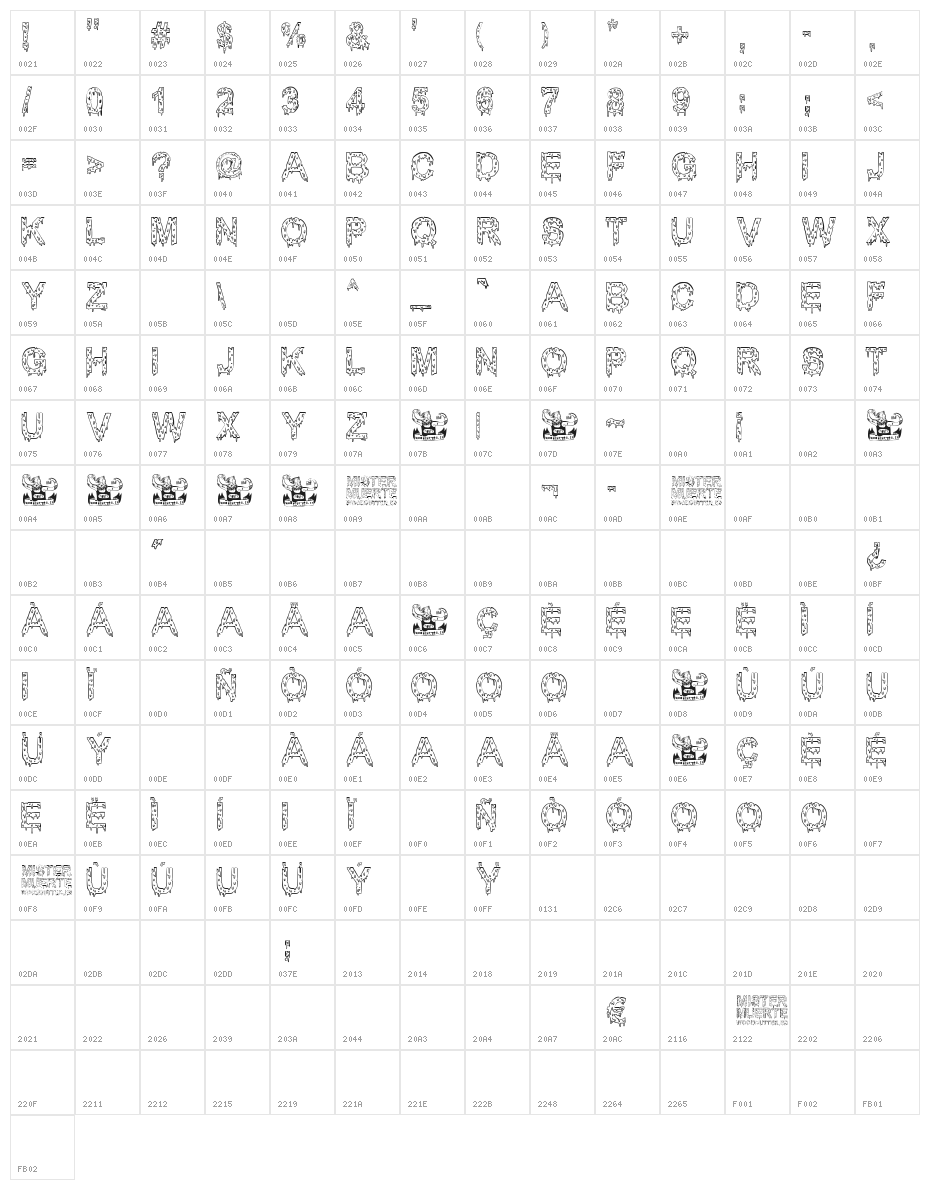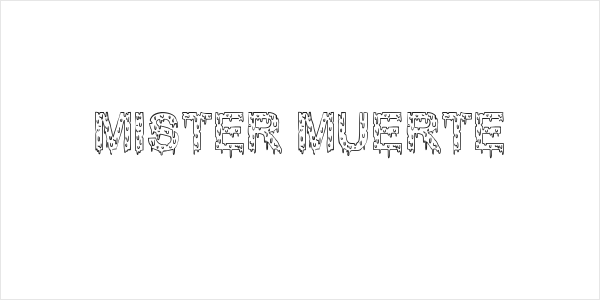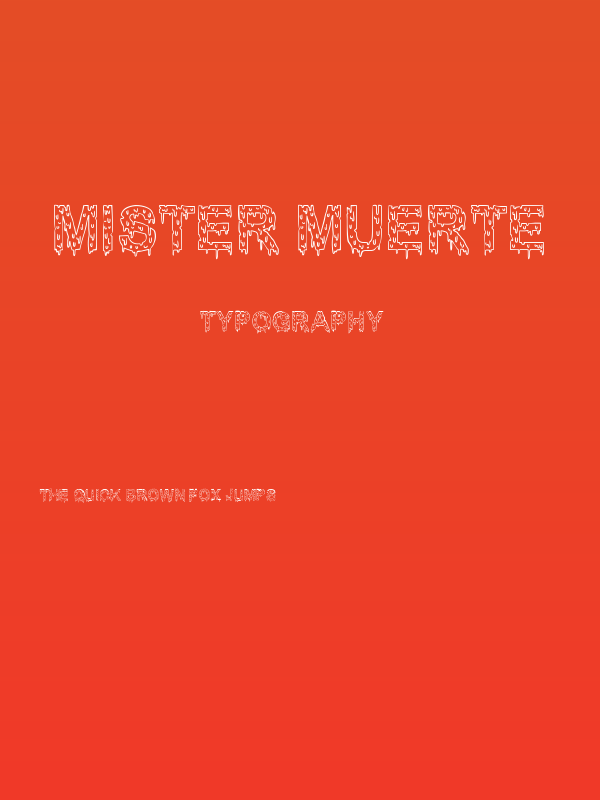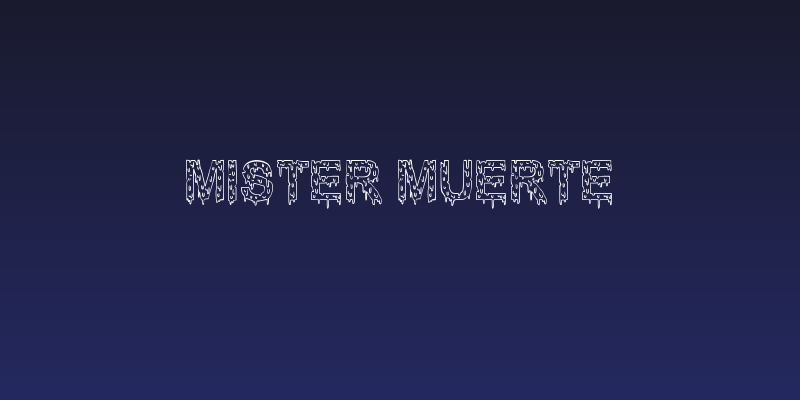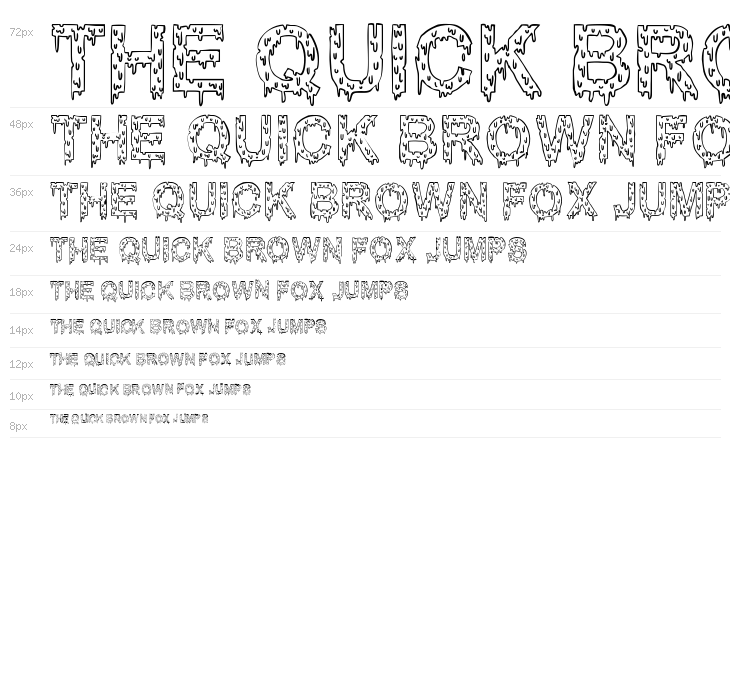
Mister Muerte Font
Mister Muerte Description
This font features a unique, dripping effect that gives each character a melting appearance. The letters are bold and have a playful, yet slightly eerie aesthetic, reminiscent of horror or Halloween themes. The uppercase and lowercase letters maintain a consistent style, with the drips adding an organic, fluid motion to the otherwise structured forms. Numbers and special characters follow the same design, ensuring a cohesive look across all elements. The font's intricate details make it stand out, ideal for eye-catching designs.
| Use Case | Headlines, Posters, Themed Events |
| Proposed Projects | Perfect for Halloween-themed projects, horror movie posters, spooky invitations, or any design requiring a dramatic, eye-catching typeface. |